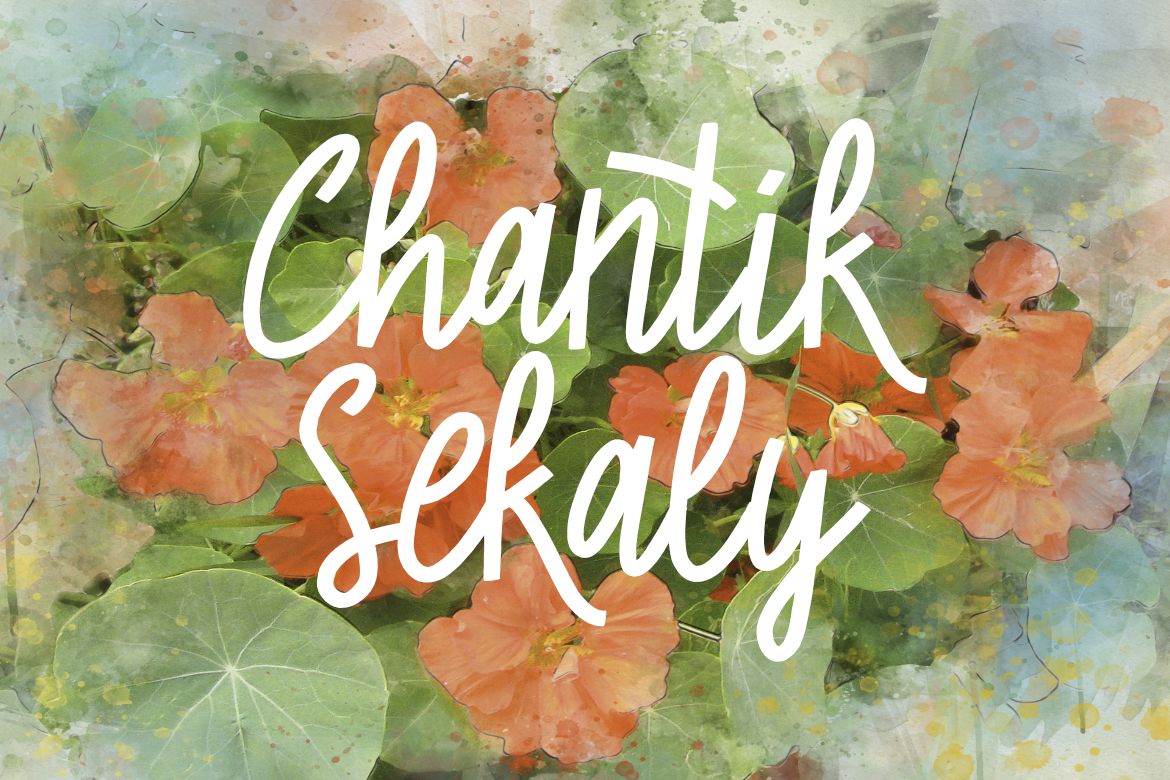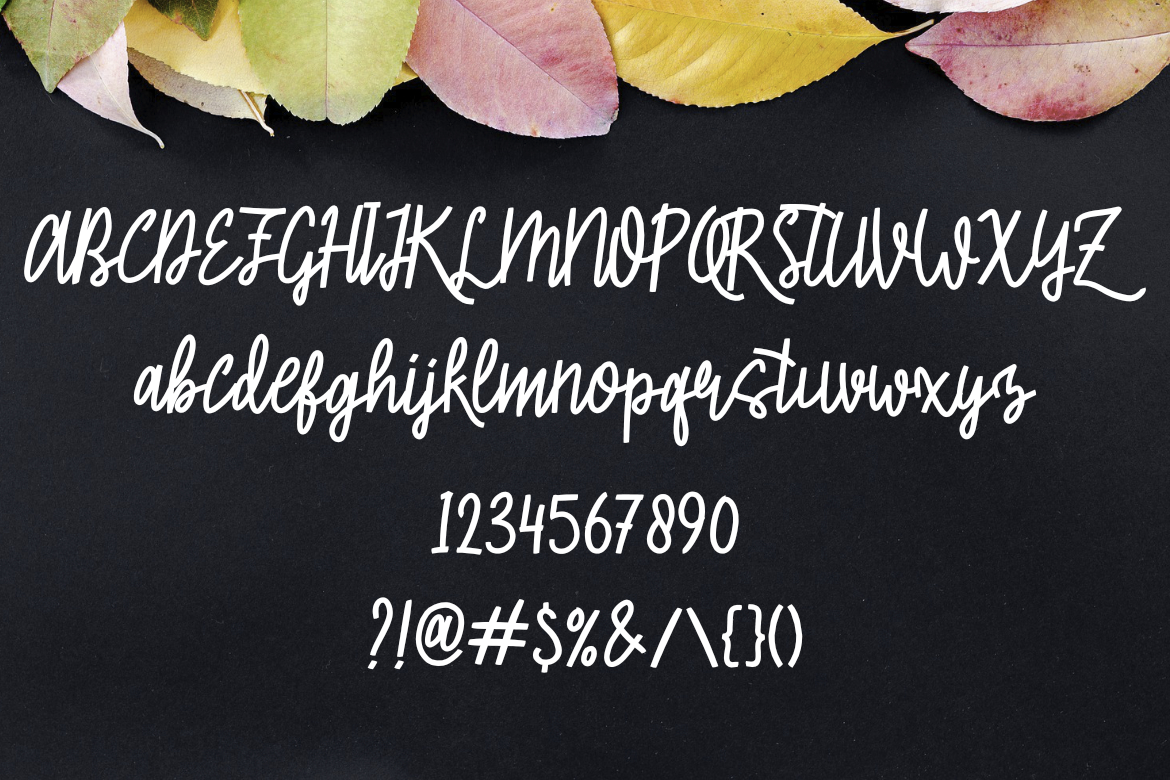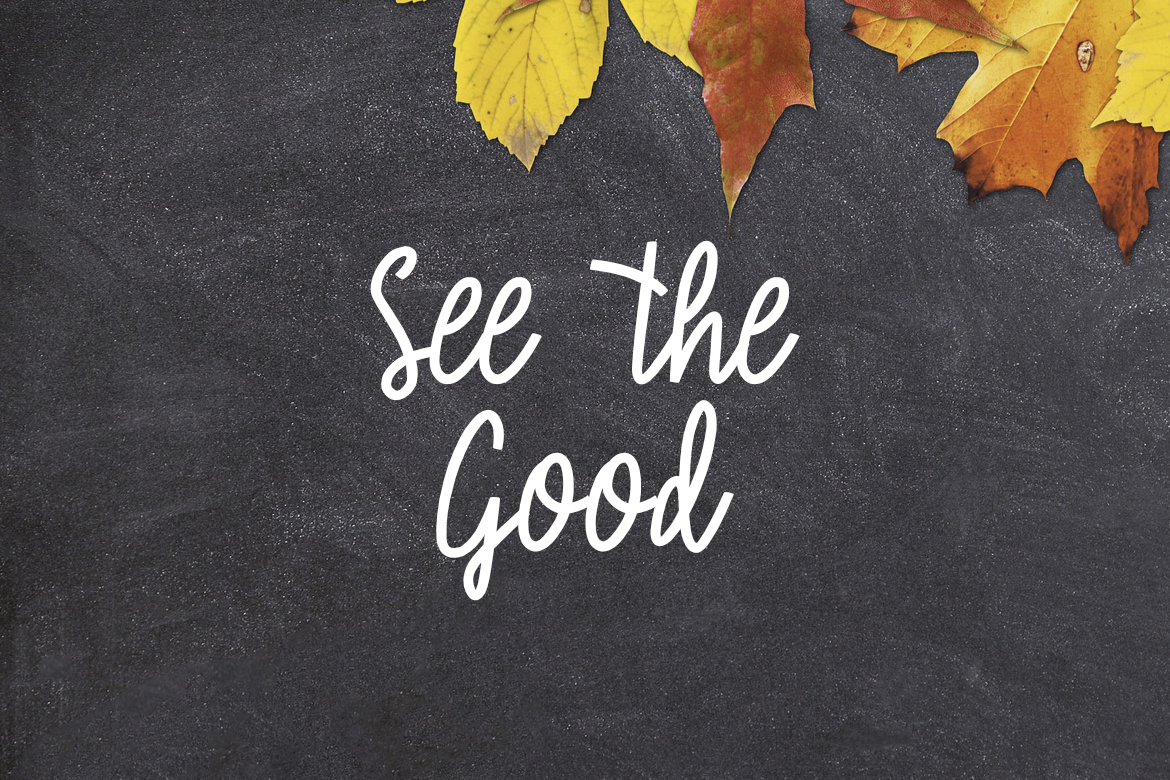
Chantik Sekaly Font
About Chantik Sekaly Font
Chantik Sekaly is a friendly and warmly designed script font, handwritten with love and precision. This font looks great splayed on textured designs, or as a headline.